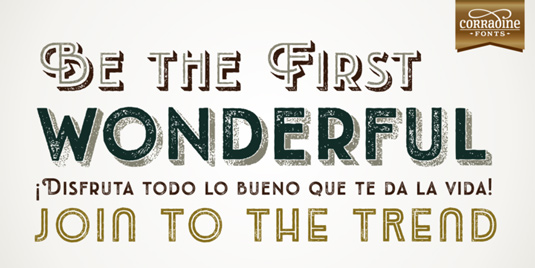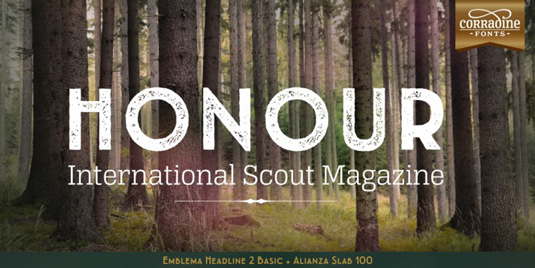
Font of the day: Emblema Headline
Every day we showcase the best fonts on the web. Today it's Emblema Headline by Duván Cárdenas.
Emblema Headline by Duván Cárdenas
Created by Duván Cárdenas, Emblema Headline is based on Corradine Fonts font Emblema 65, and was developed as a powerful tool for modern designers who need a vintage Art Deco style font with personality and high quality. Available from MyFonts, the Emblema Headline family have four layers, each one with three or four different looks for a total of thirteen different variations.